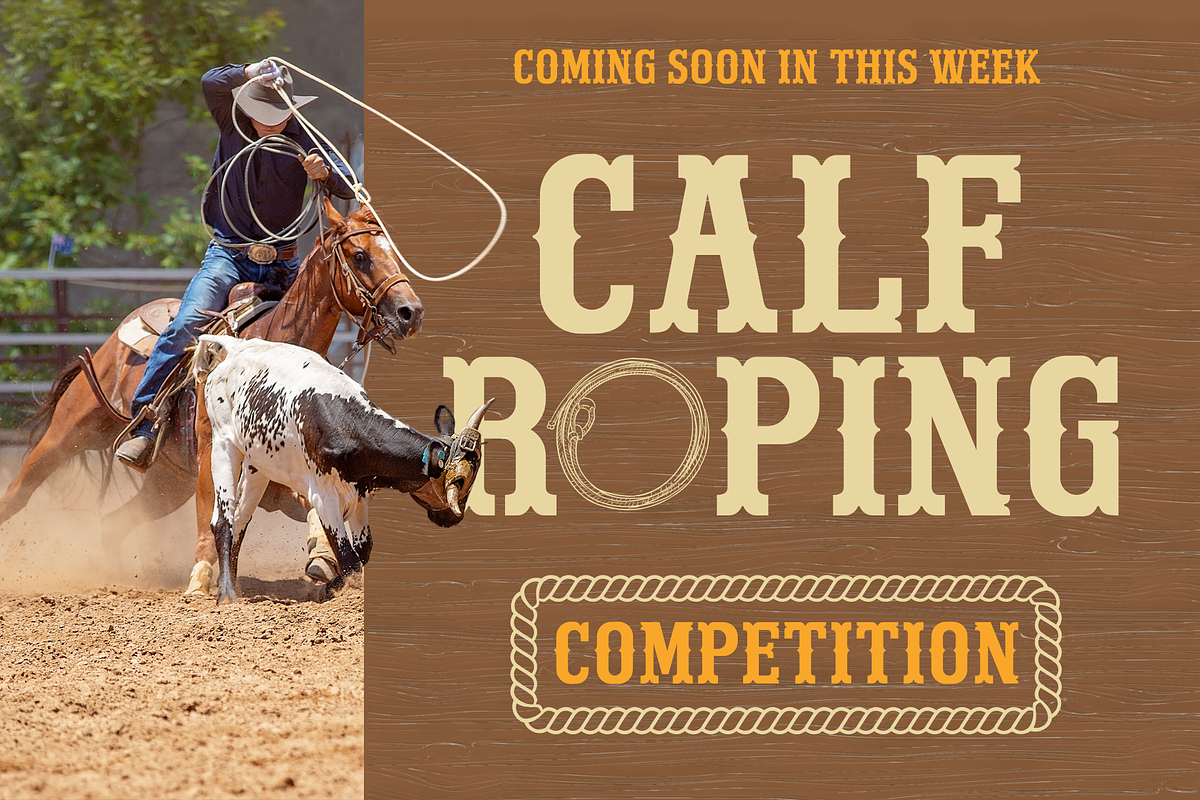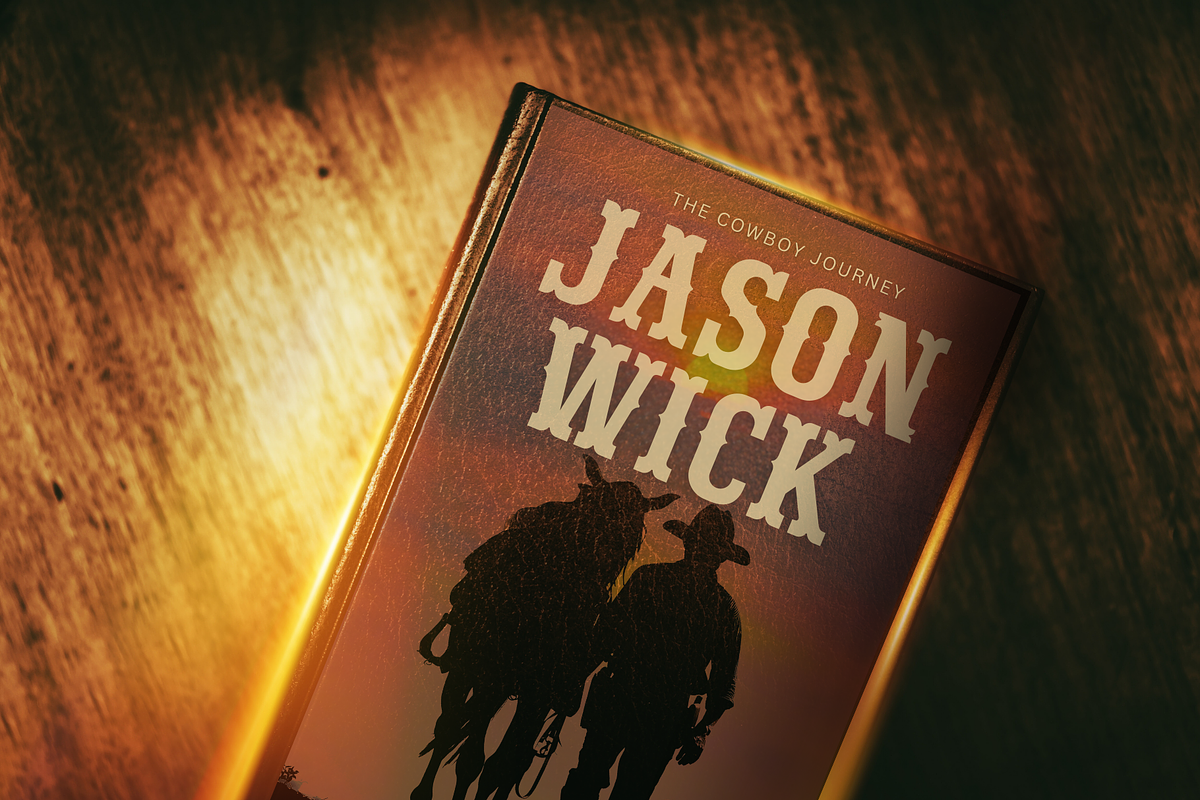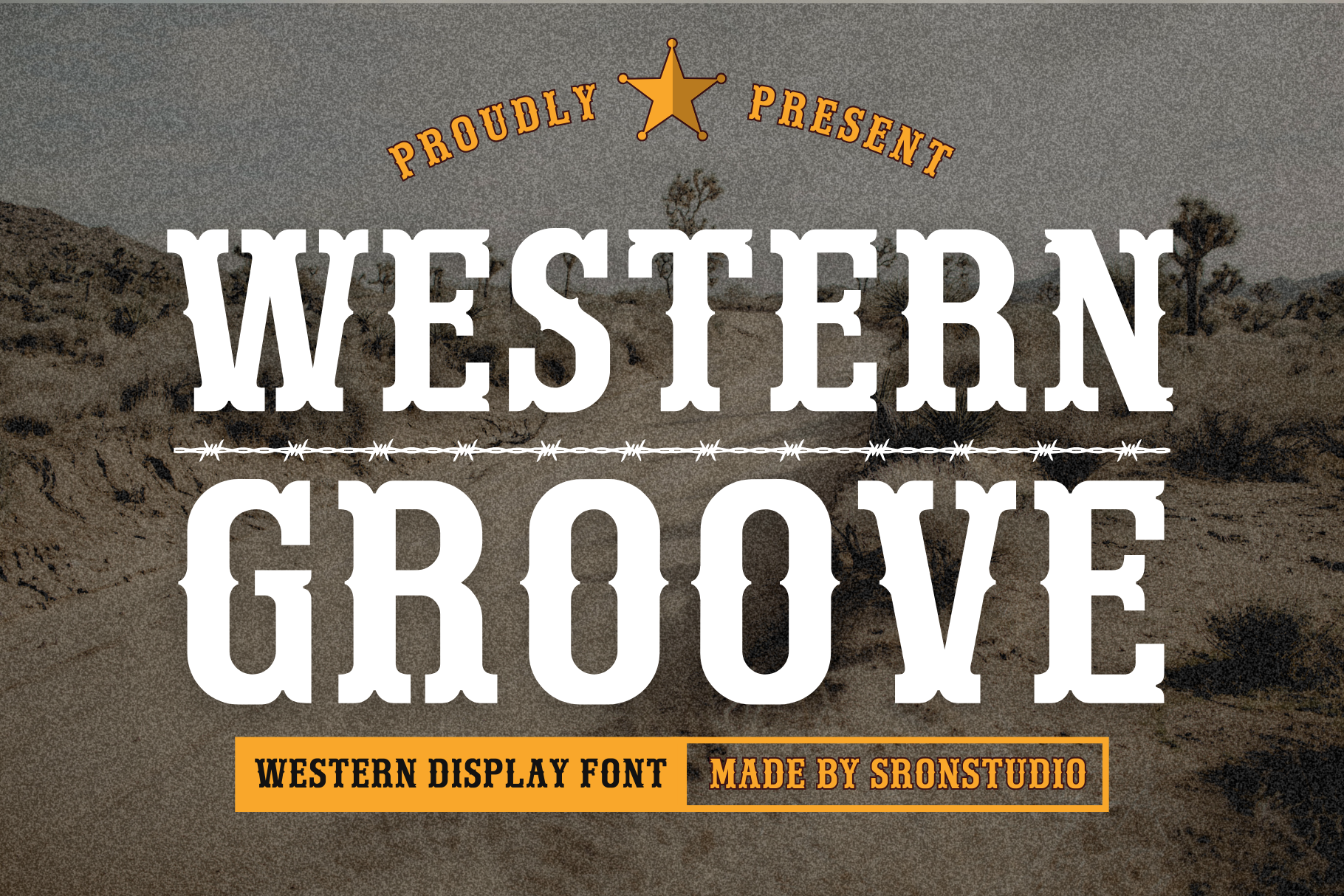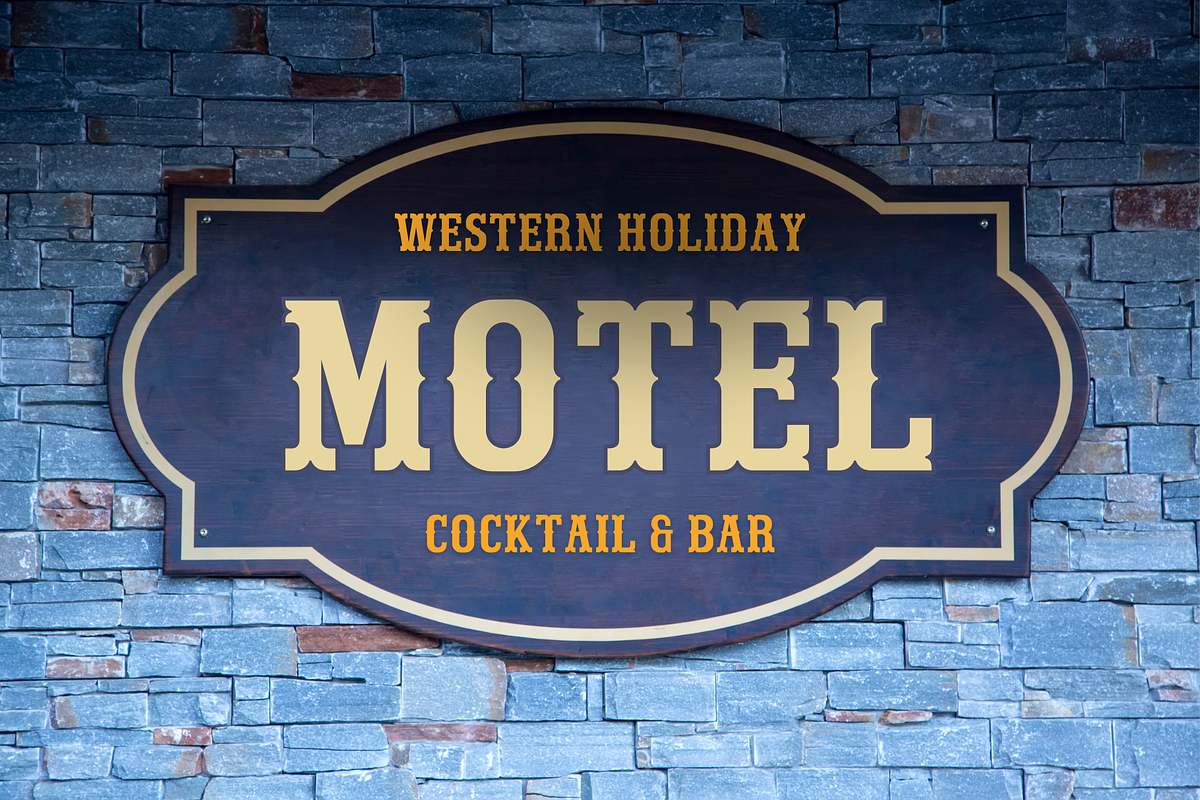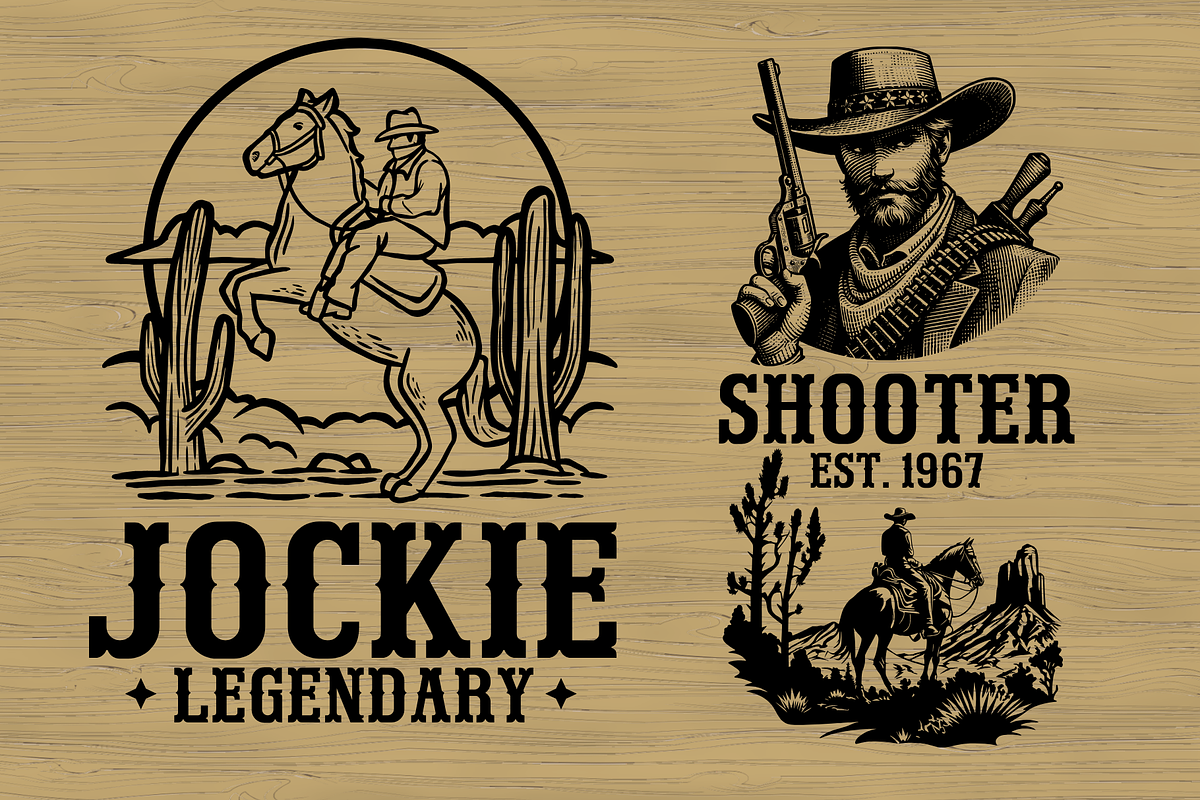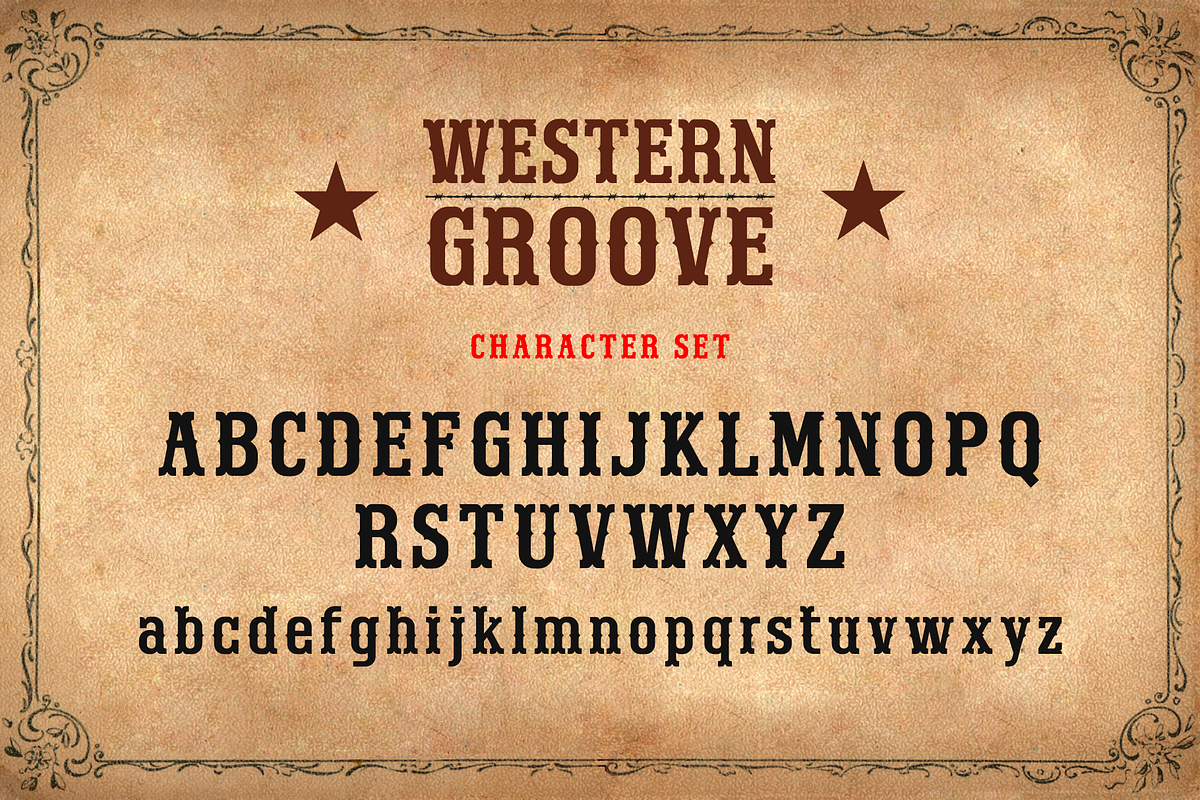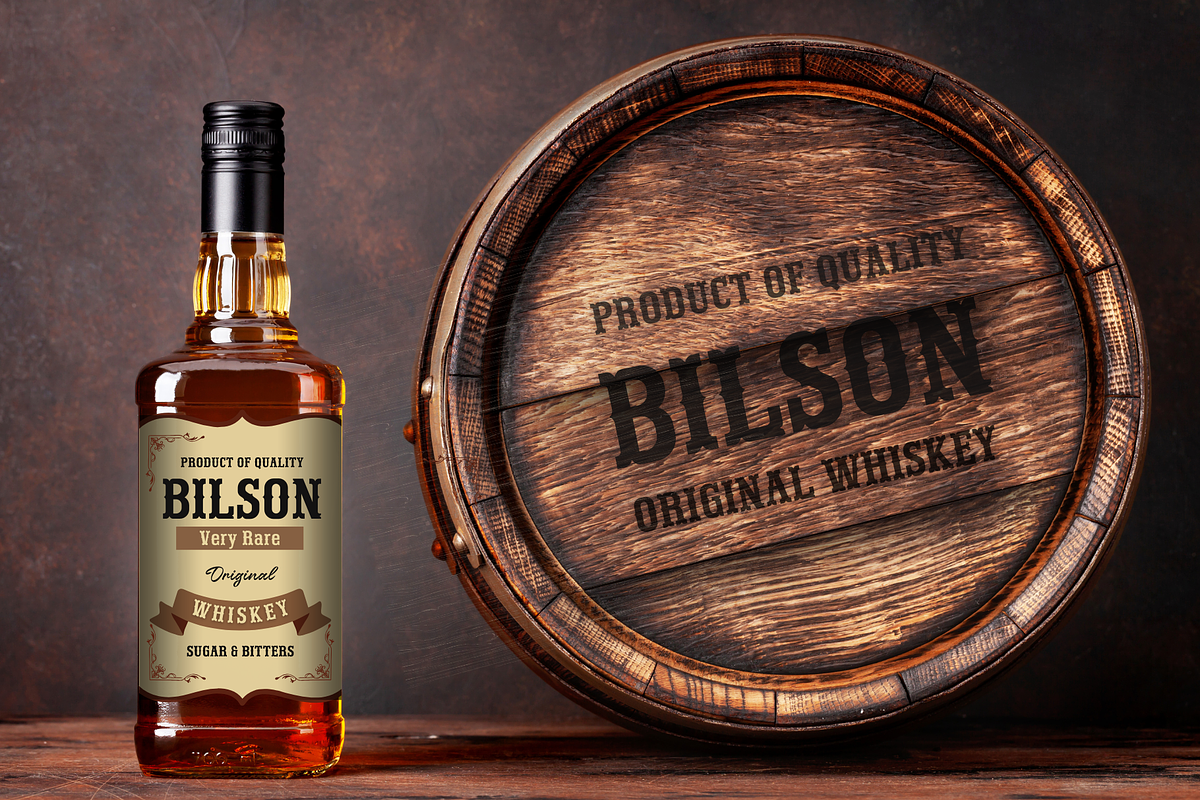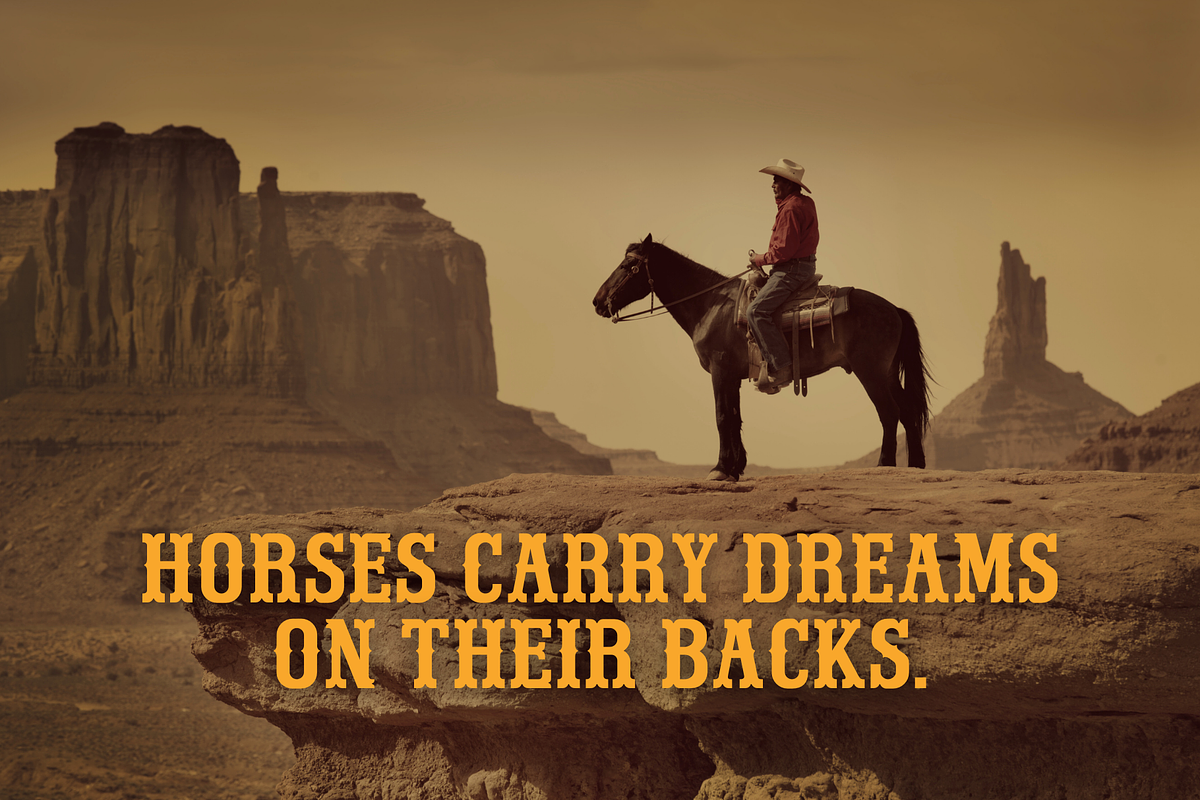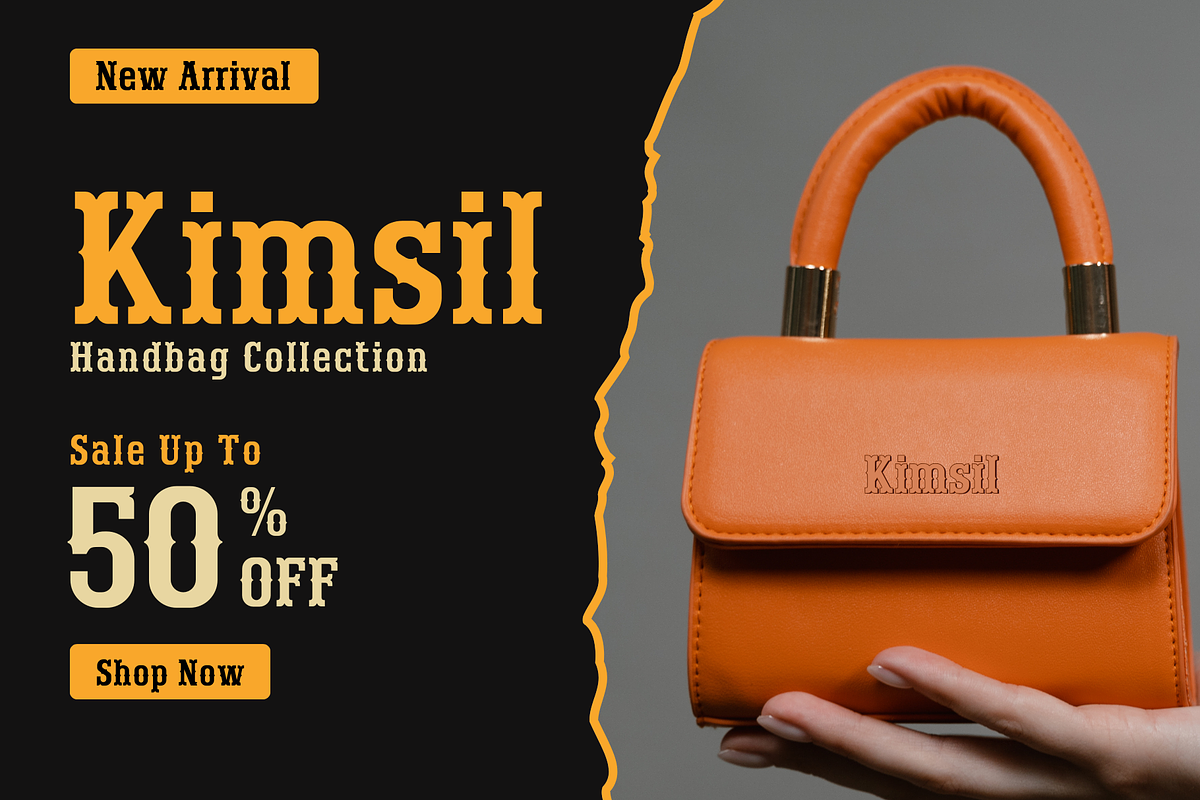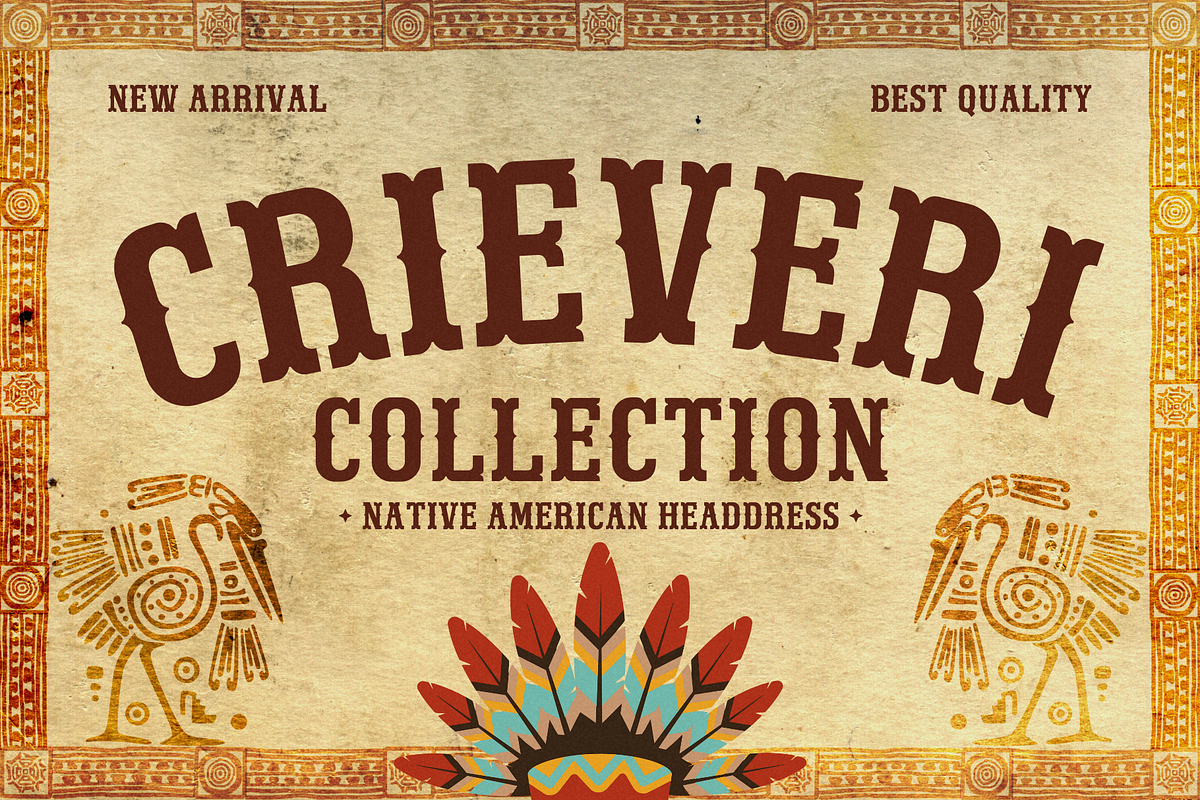
Western Groove - Western Font
Western Groove is a rugged, bold cowboy font that captures the spirit of the Wild West. With its strong, vintage-inspired letters and western-style flair, this font is perfect for evoking the classic frontier vibe. Ideal for branding, posters, logos, and signage, Western Groove brings a rustic, adventurous touch to your designs. Whether you're creating for a rodeo, saloon, or western-themed project, this font delivers authentic cowboy charm!